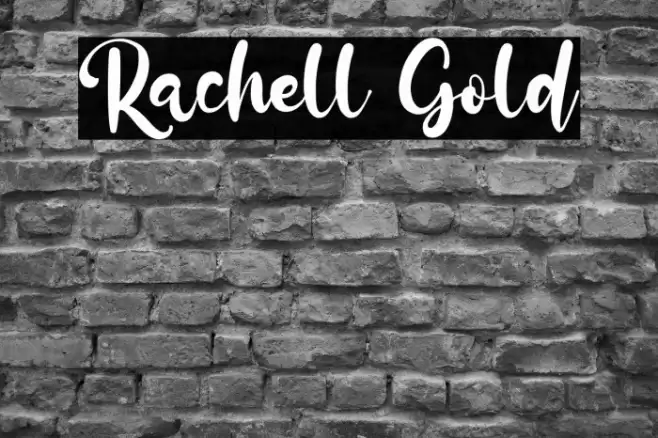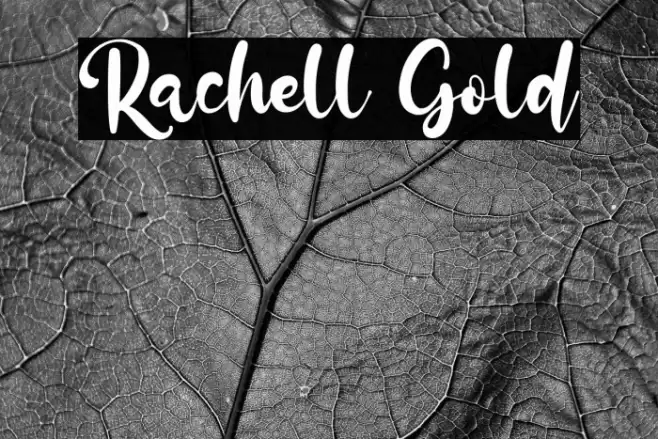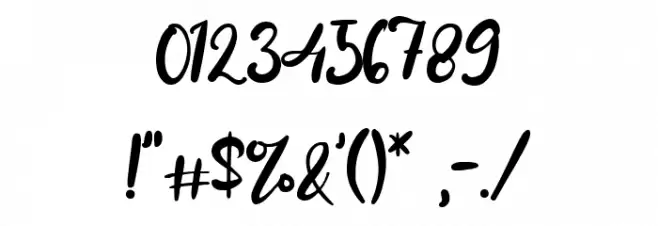
Rachell Gold Font
Rachell Gold Description
This font features a lively and expressive script style with a handwritten feel. The characters are fluid and connected, showcasing elegant curves and loops that give it a dynamic appearance. The uppercase letters are bold and prominent, while the lowercase letters maintain a consistent flow, enhancing readability. Numbers and special characters are designed to match the playful and artistic nature of the font, making it versatile for various creative applications. The overall design is both modern and classic, suitable for projects that require a personal touch.
A lively, expressive script font with a handwritten feel and elegant curves from Regular fonts.
- Proposed Projects: Ideal for wedding invitations, greeting cards, branding, and social media graphics.
- Overall Style: Modern, Classic
- Use Case: Logos, Headlines, Invitations